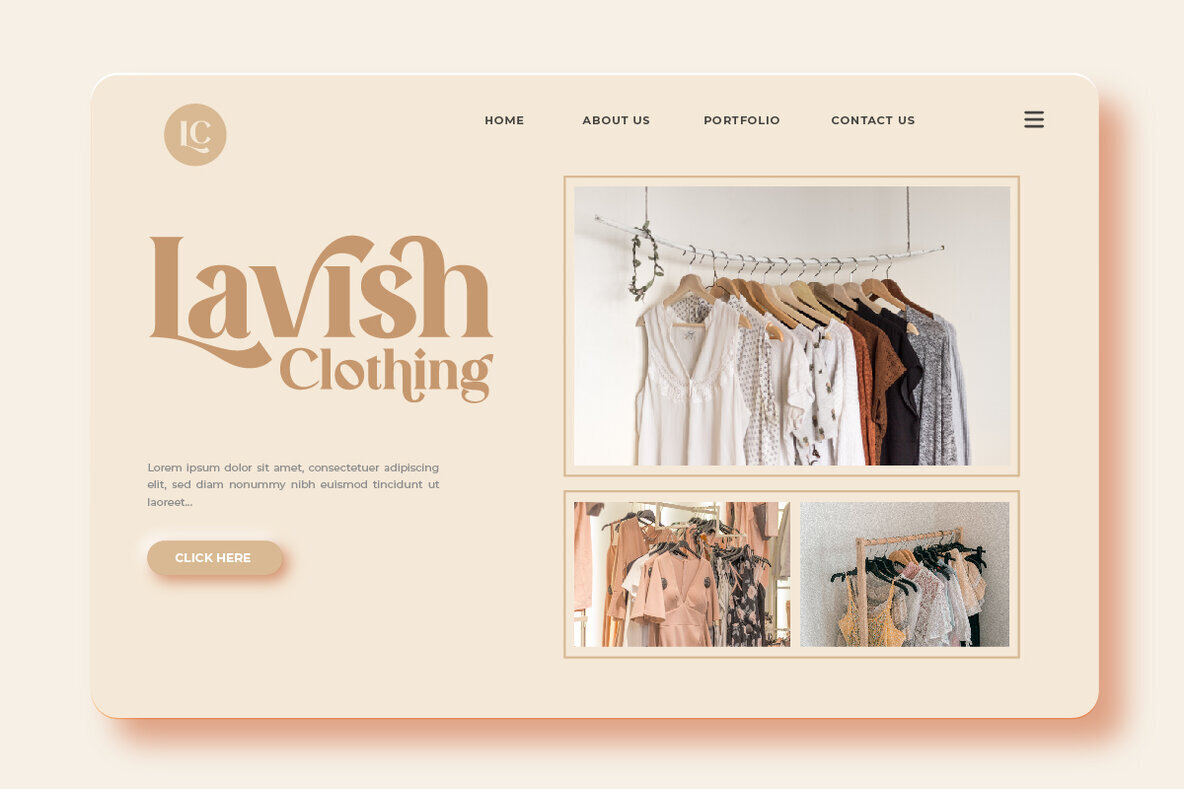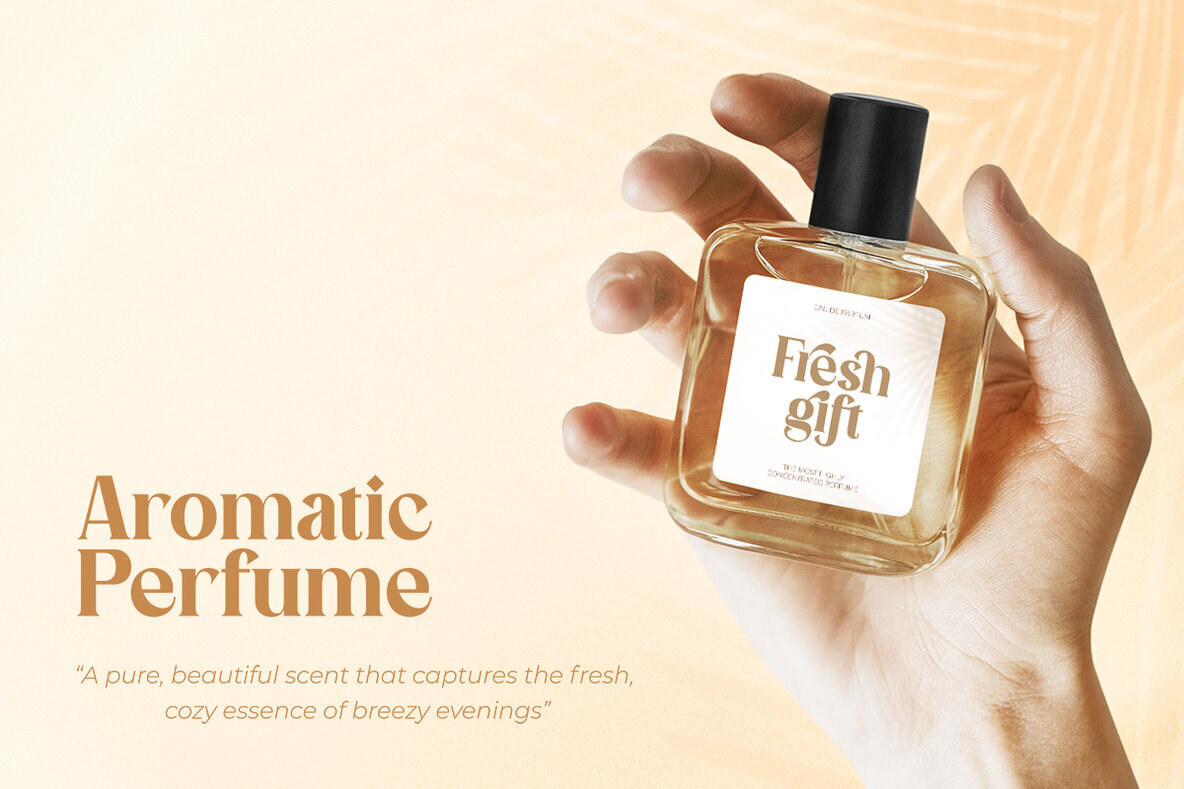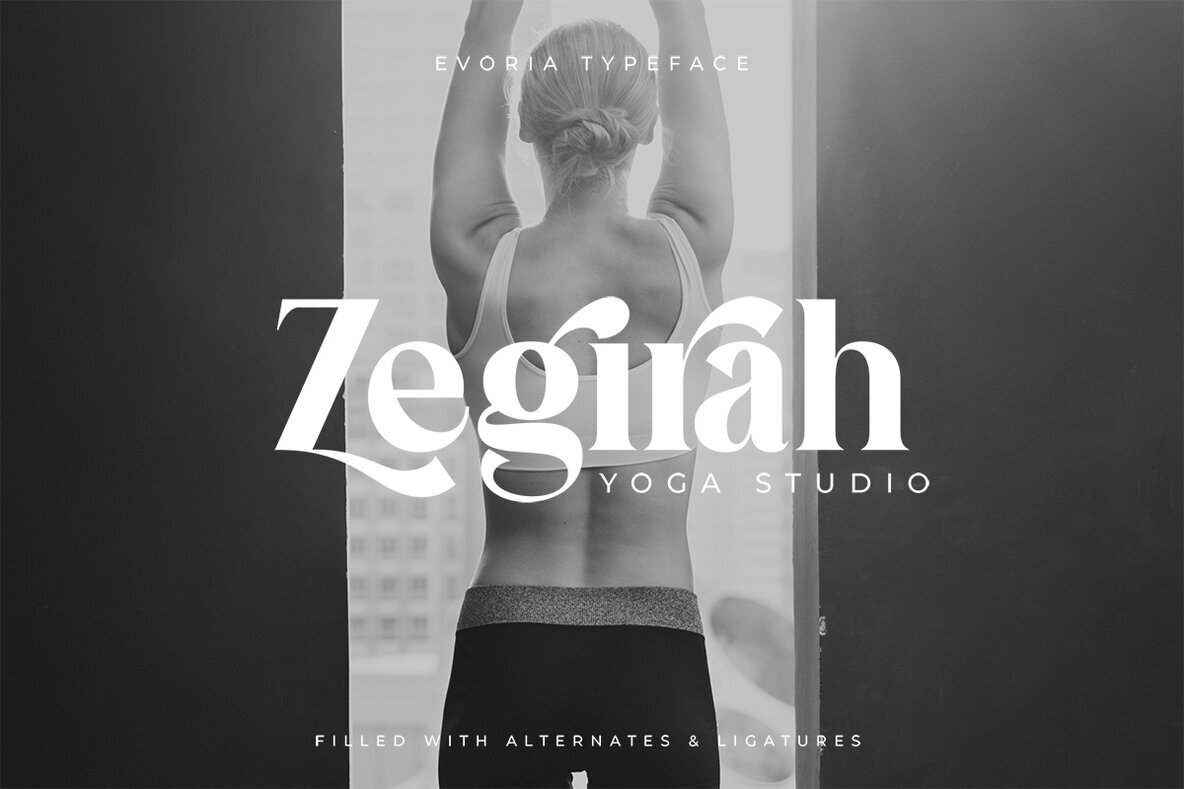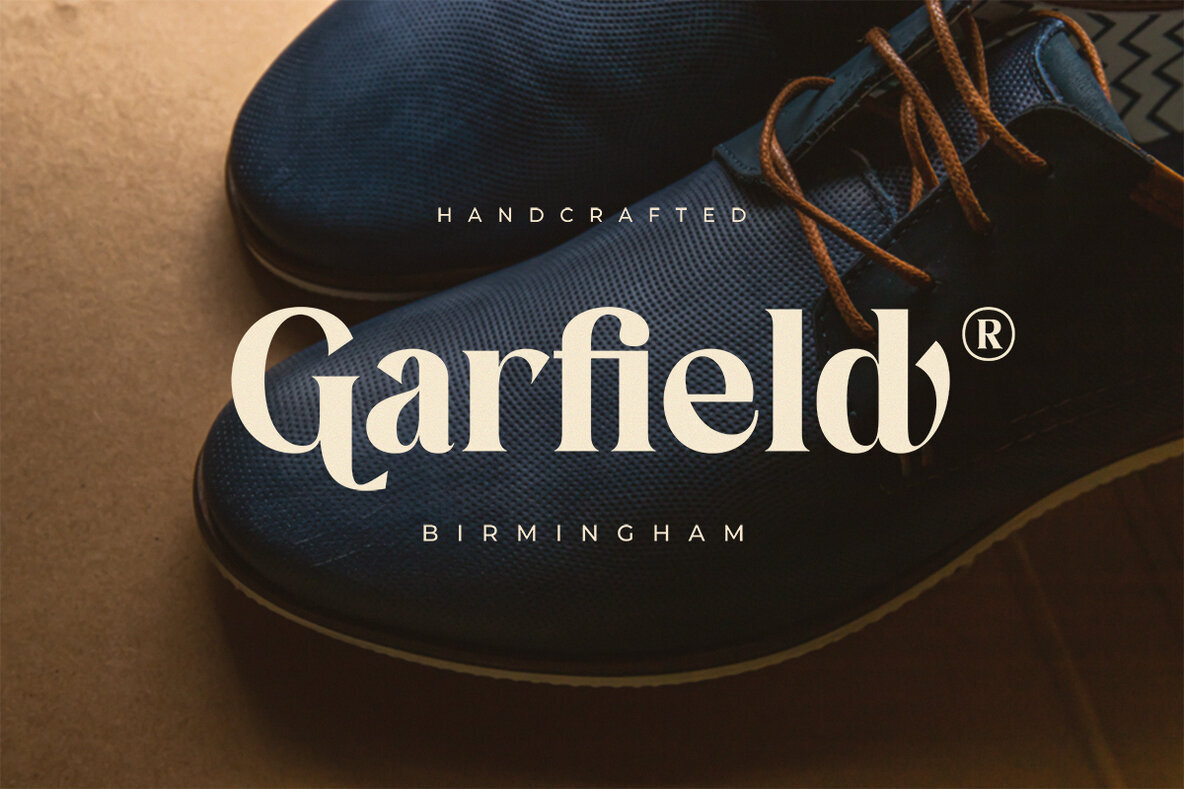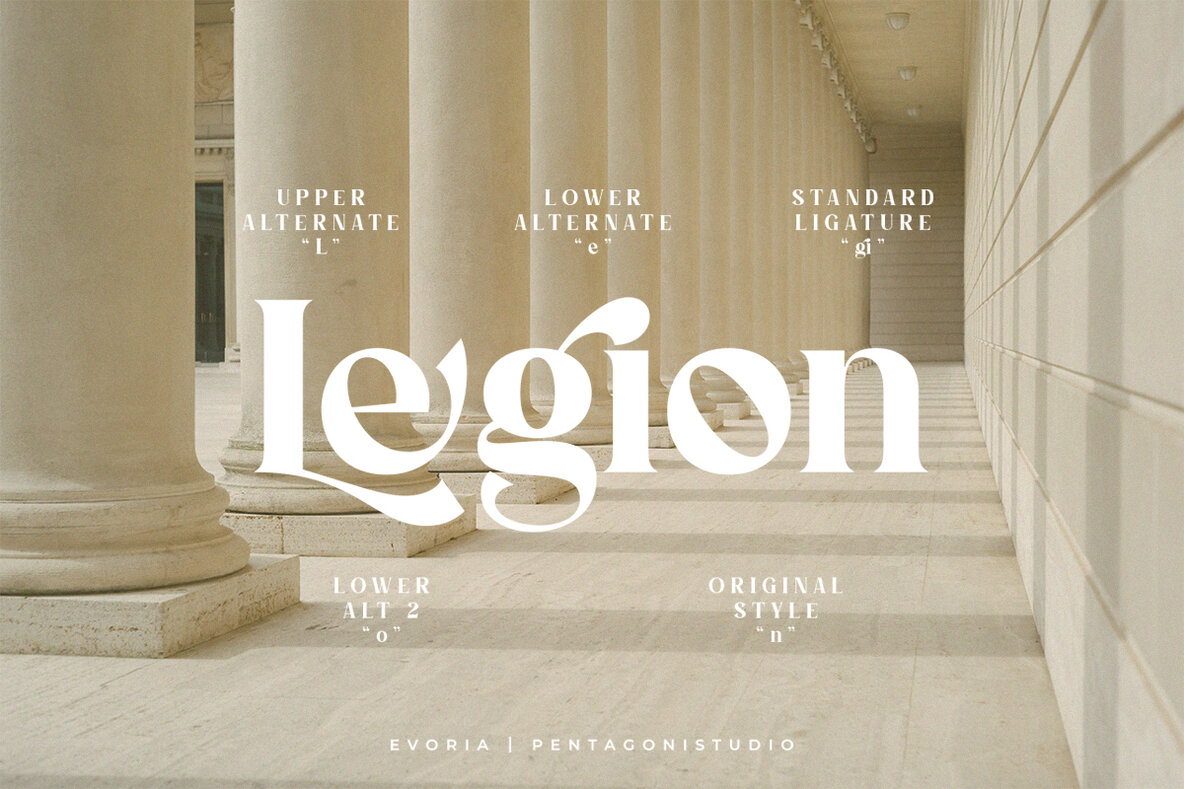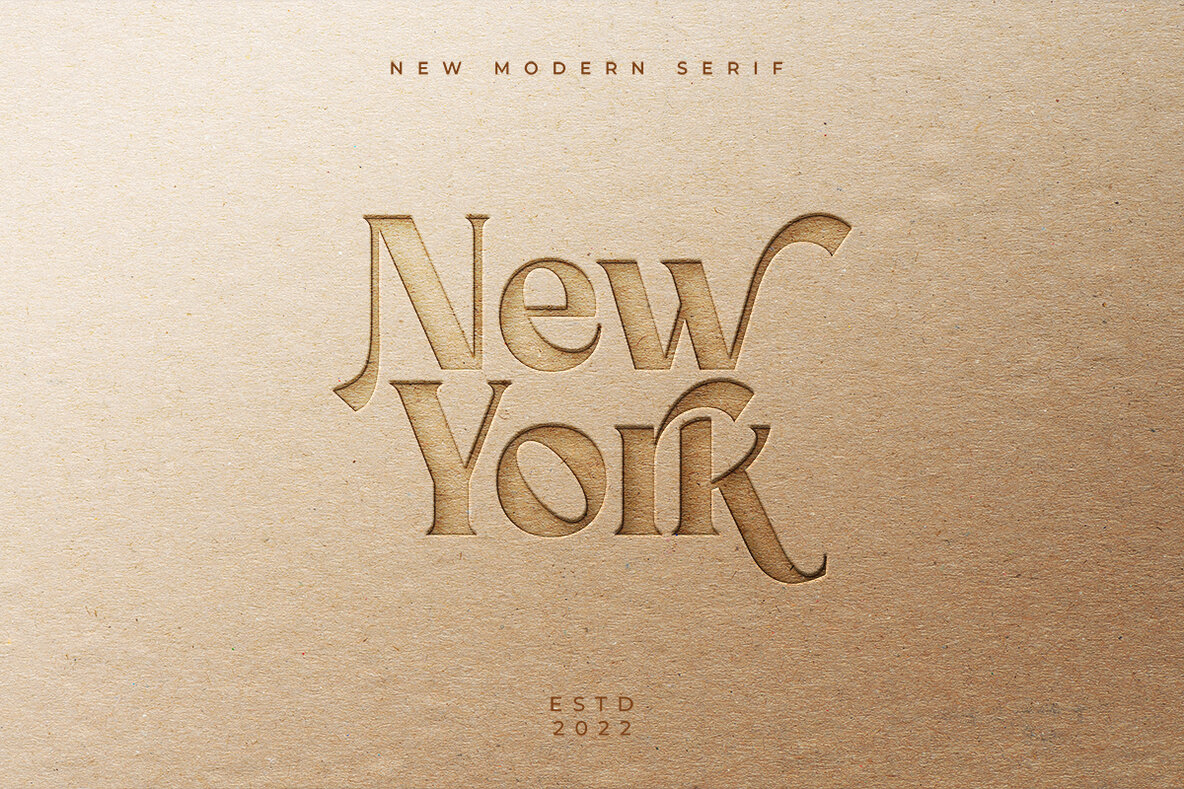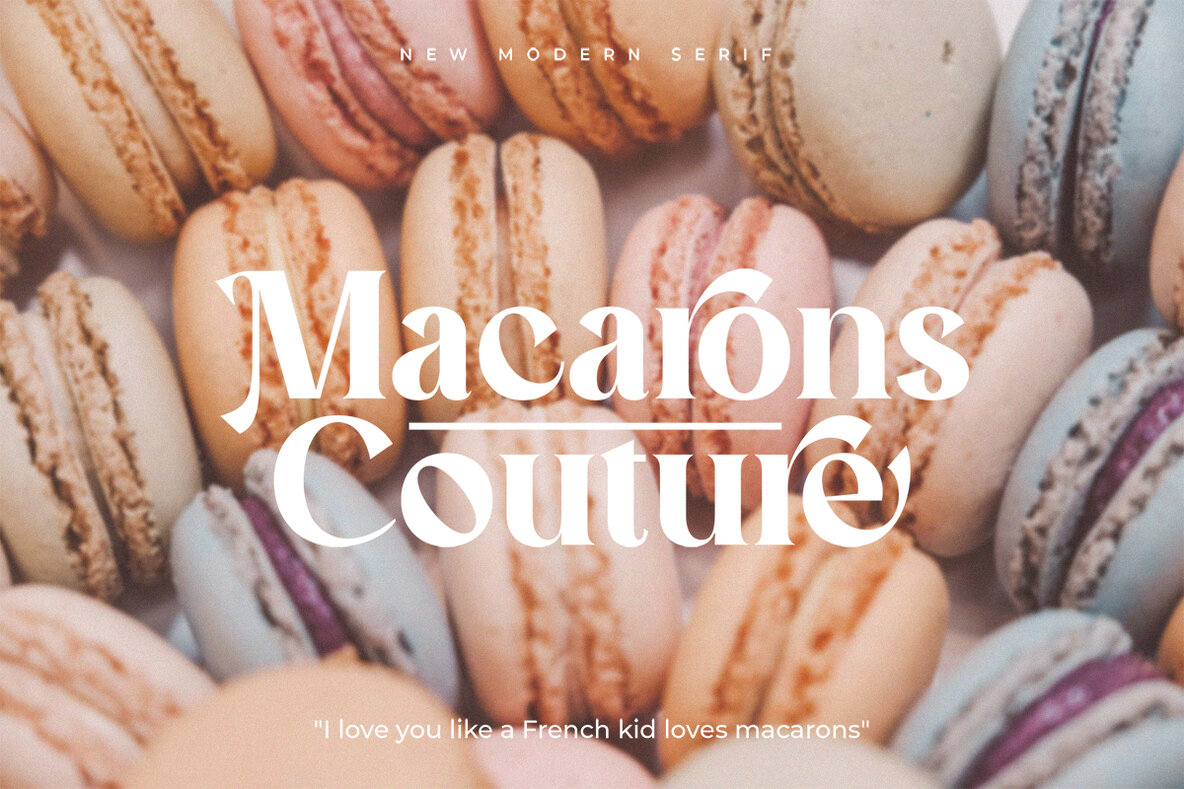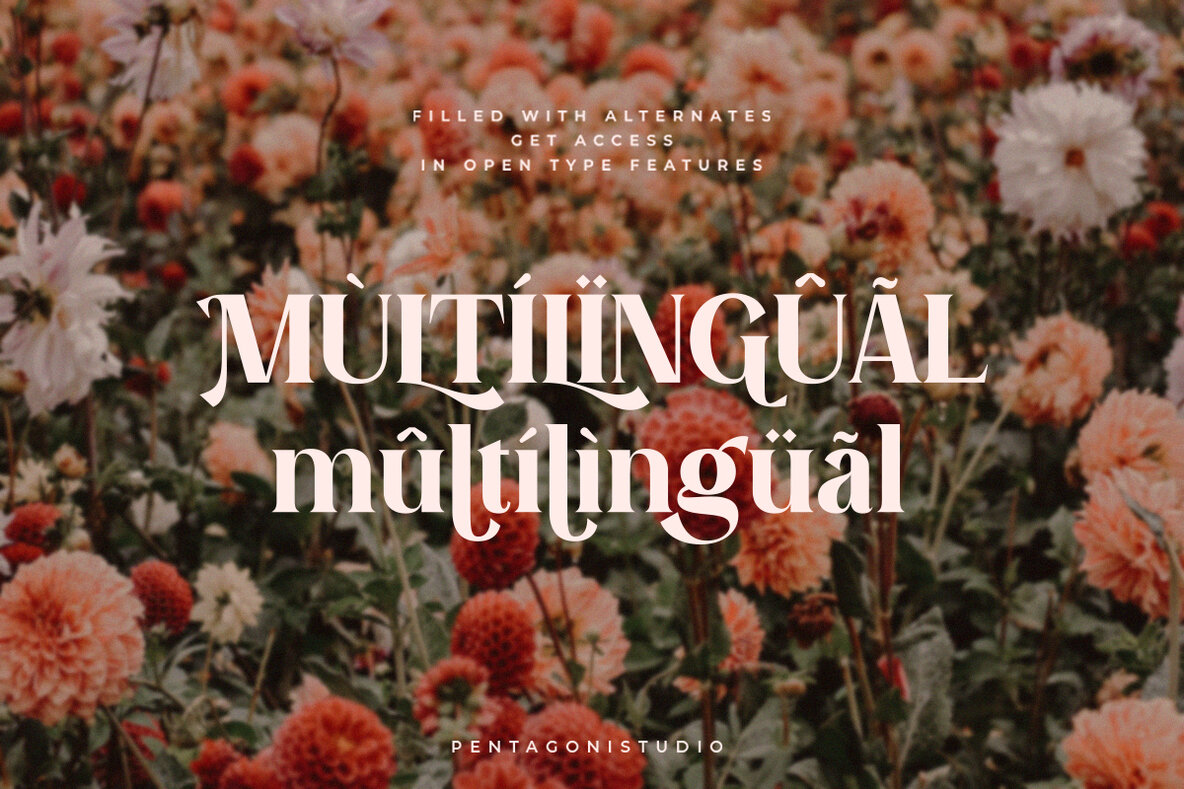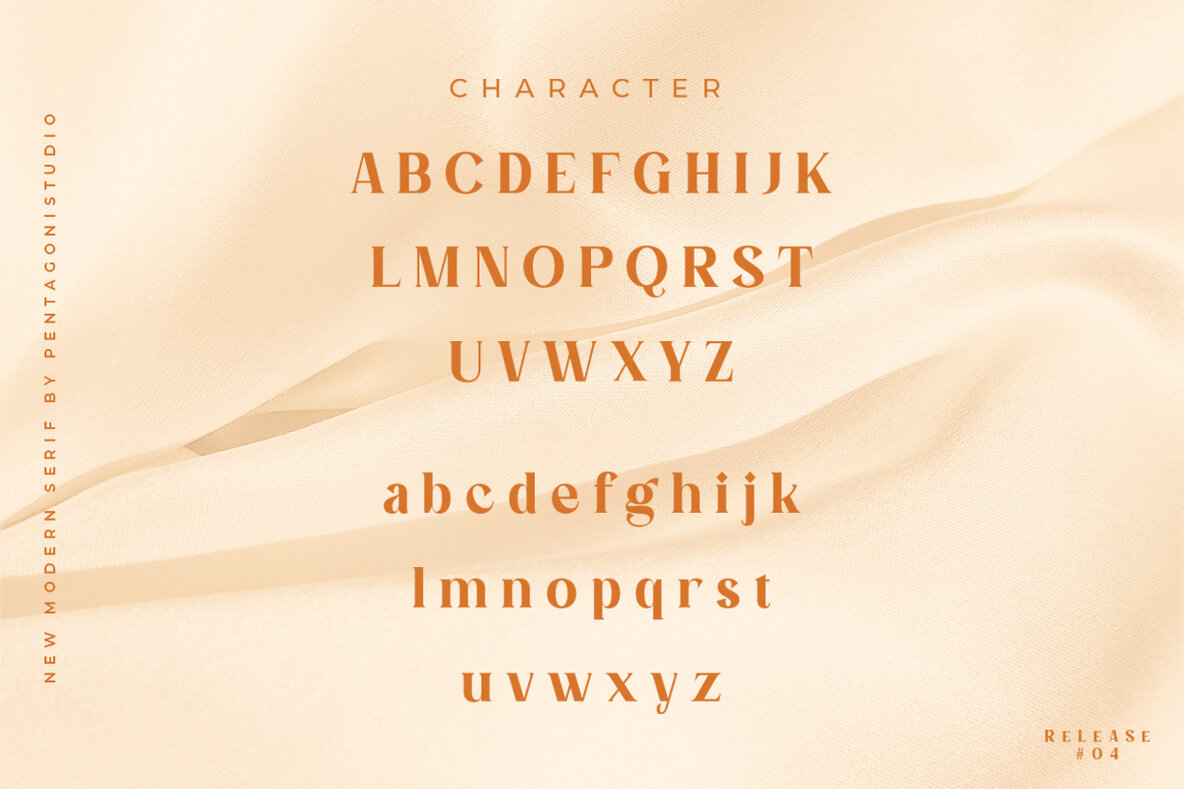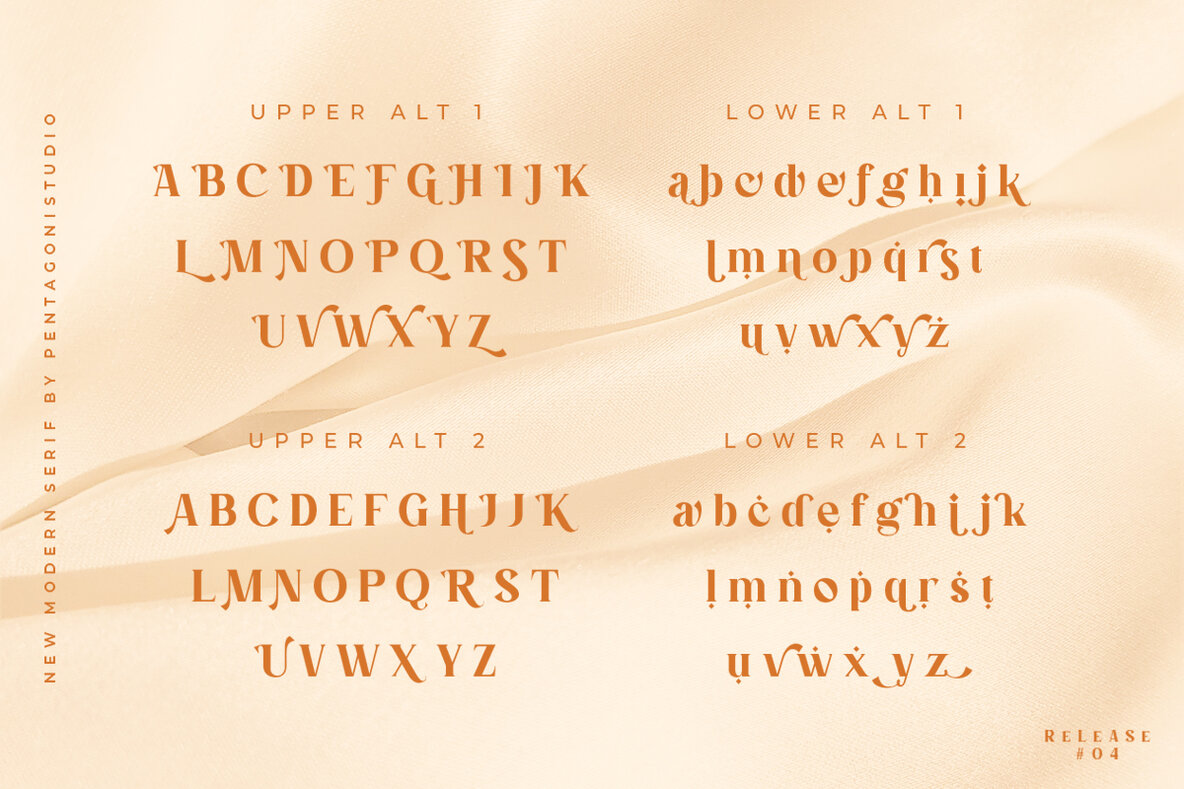
Evoria Font
Evoria
Evoria emerges as a sophisticated choice for discerning designers, offering a stylish serif font inspired by contemporary elegance. This font captures the refined aesthetic needed for both digital and print designs, making it a versatile addition to your typography arsenal.Evoria: An Elegant Modern Serif